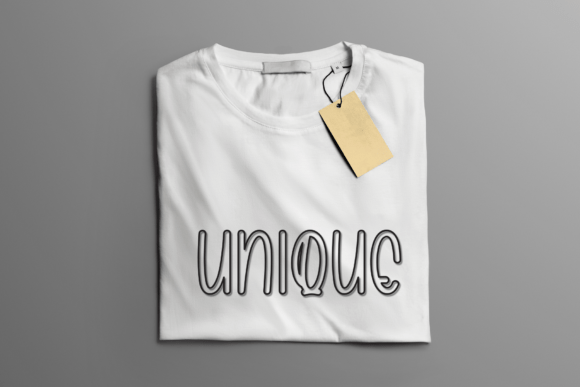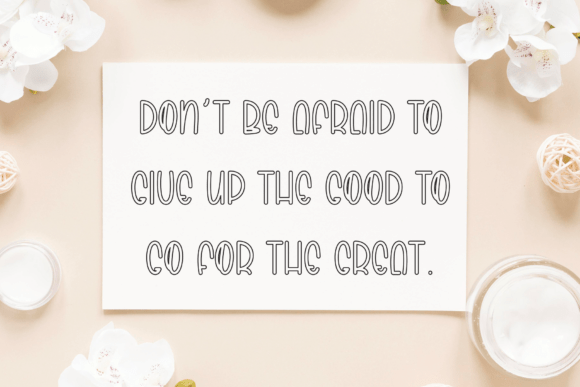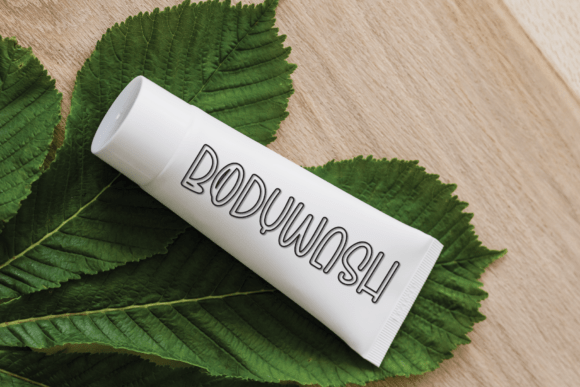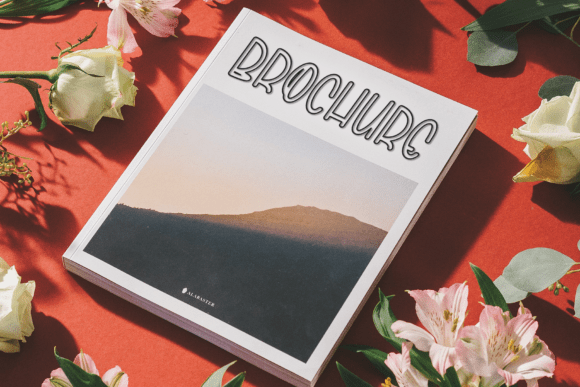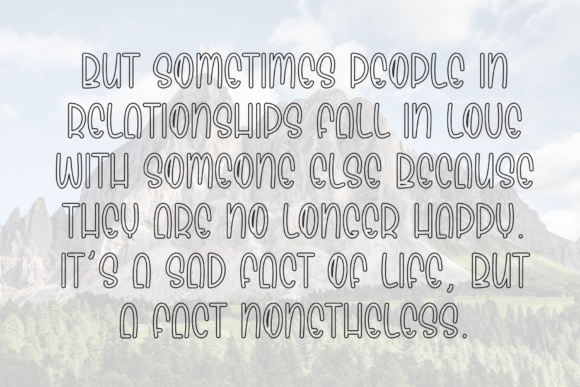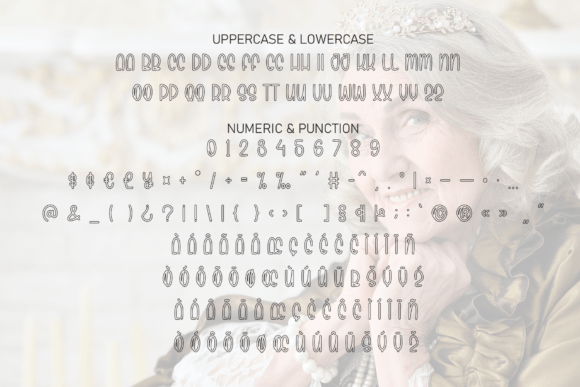
Introduction to Queen Grandma Font
Introducing a delightful and amiable hand-scribed display font that is just brimming with charm.
With its cheerful and appealing aesthetics, this font takes joy and style to the next level Perfect for crafting whimsical wedding invitations, personalized cards, or any design craving for a splash of fun.
Key Features of Queen Grandma Font